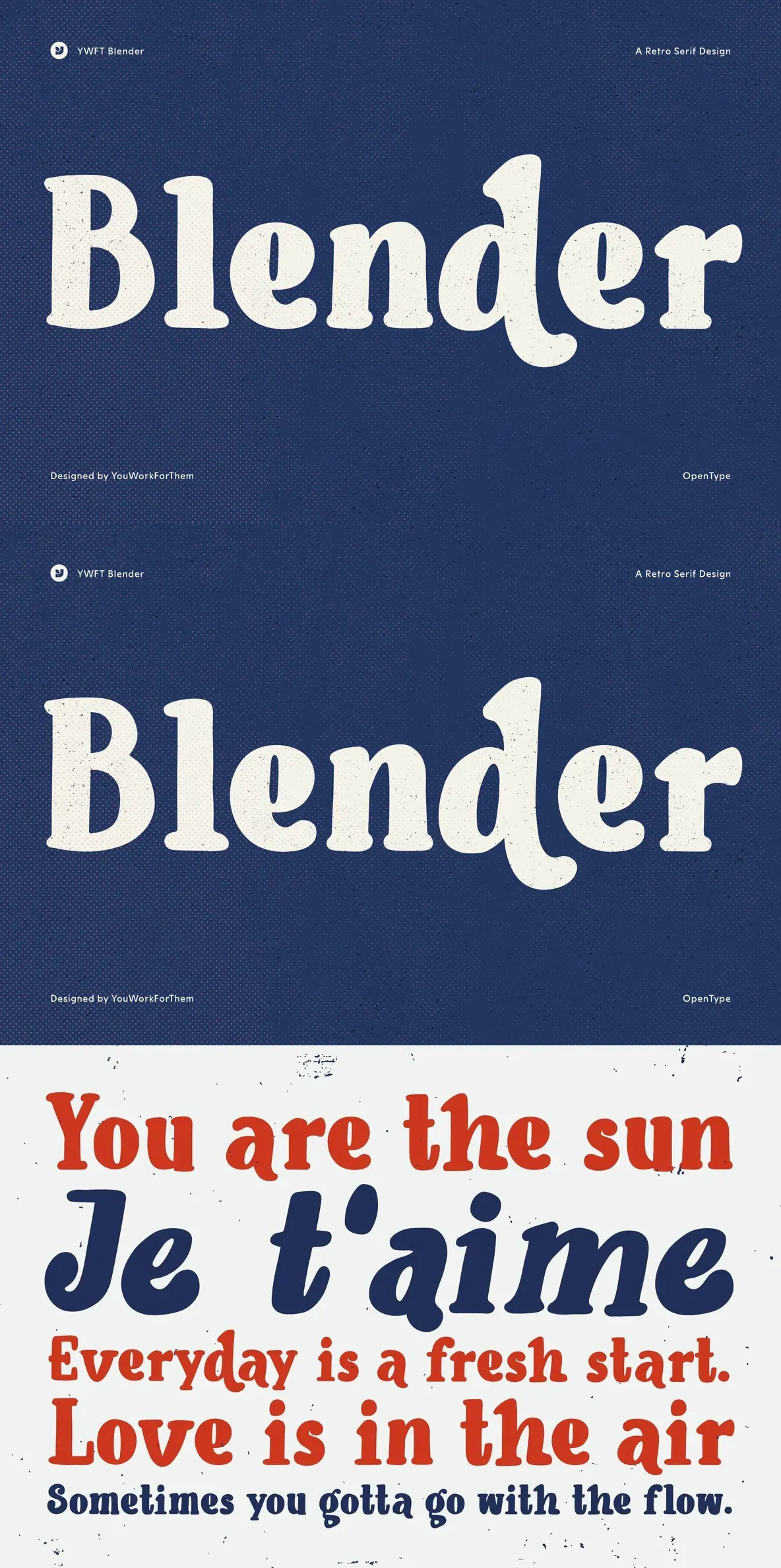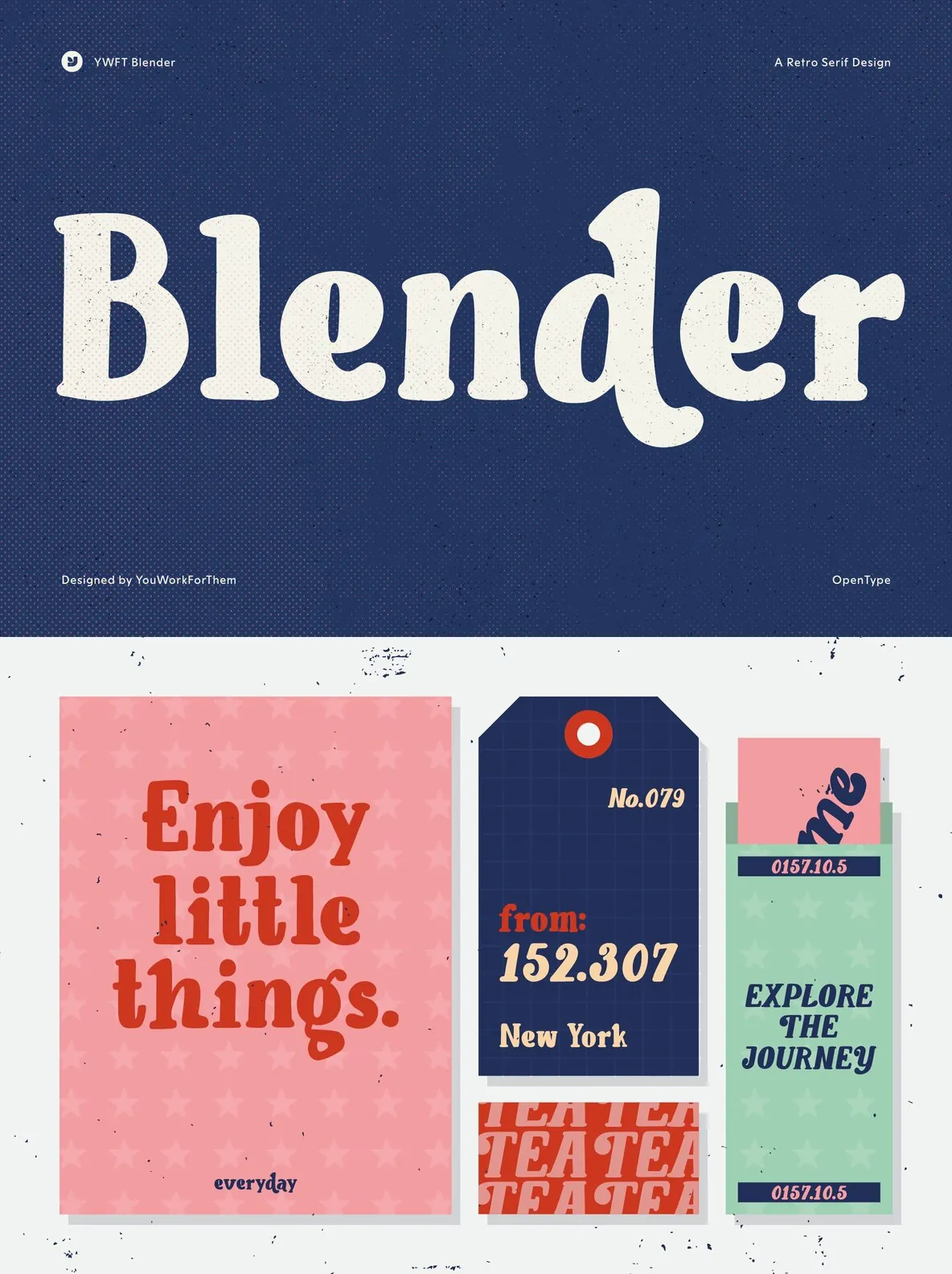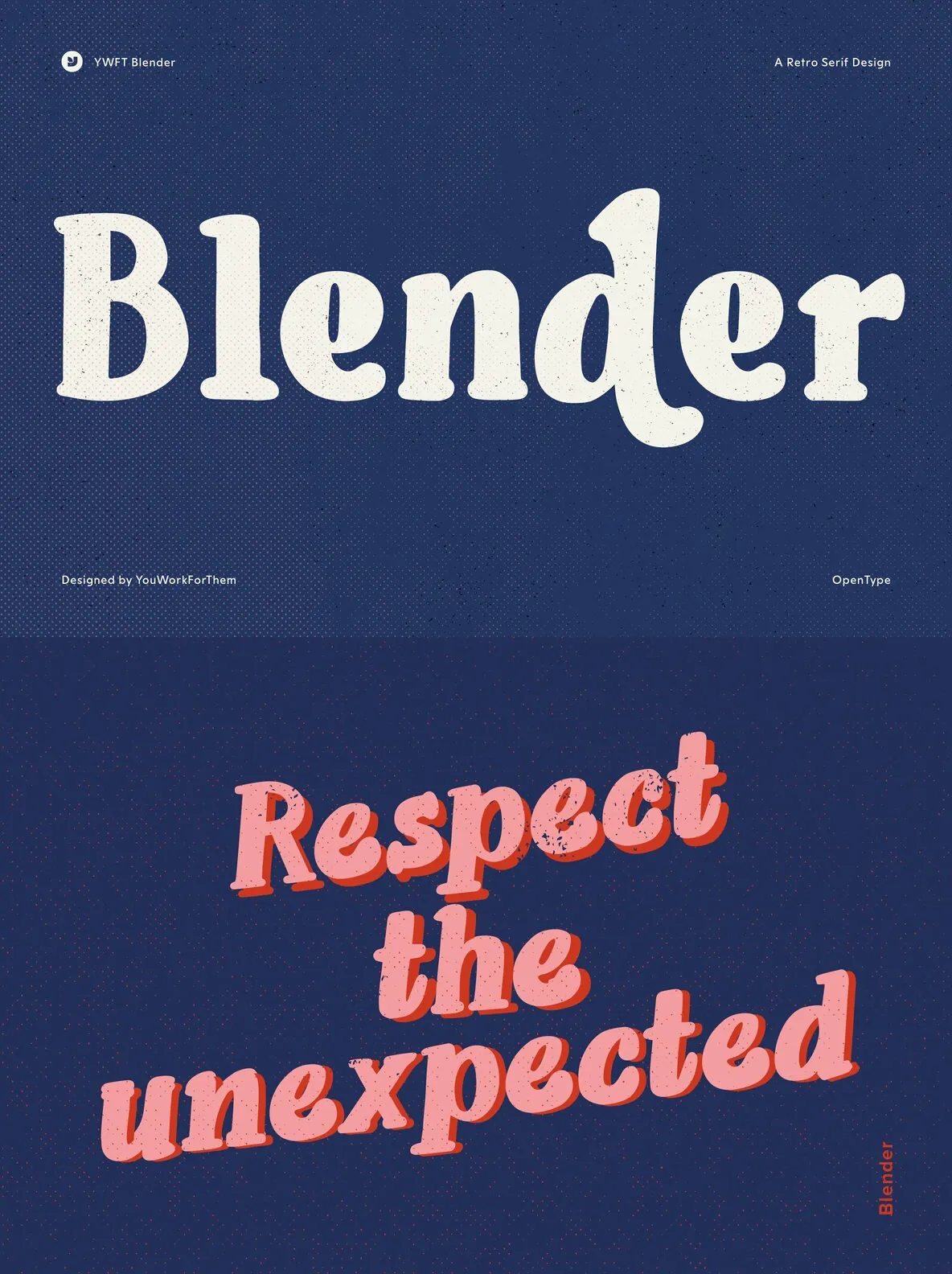
More and more, nostalgia marketing has only continued to increase in popularity. Maybe it’s because our lives have become so hectic and demanding that we all secretly long for a simpler time. There is certainly comfort to be found in the familiar, and vintage-style fonts tend to evoke a warm sensory response in most of us.
Like YWFT Blender. This retro-fied type design offers a bubbly structure that’s hand drawn and soaked in vintage style. Heavy, fluid brush strokes come alive through jubilant curves and curls, with thick paint strokes much like those you’d find above the door of your favorite local cafe. And just like that first cup of coffee with a pastry side, YWFT Blender is warm and inviting, with just the right amount of sugar added for good measure.
Available in regular and italic, YWFT Blender is great for signage and displays, shop windows, logos, product packaging, merchandise, “vintage” screened t-shirts, posters, menus, and any project that needs an organic font with a happy disposition.